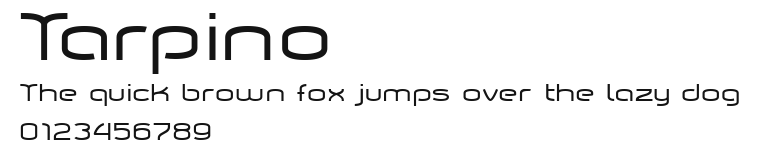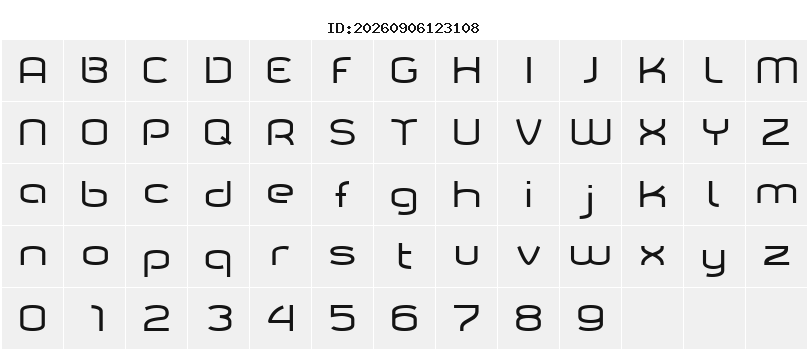
• Font Name: Tarpino
• Full Font Name: Tarpino Normal
• Copyright: © Liquid 2d. Designed by Raffi Tarpinian & Juan Madrigal
About Tarpino.ttf
Tarpino.ttf is a modern, elegant sans-serif font designed for ultimate readability and visual harmony. Perfect for branding, headlines, web design, and print materials.